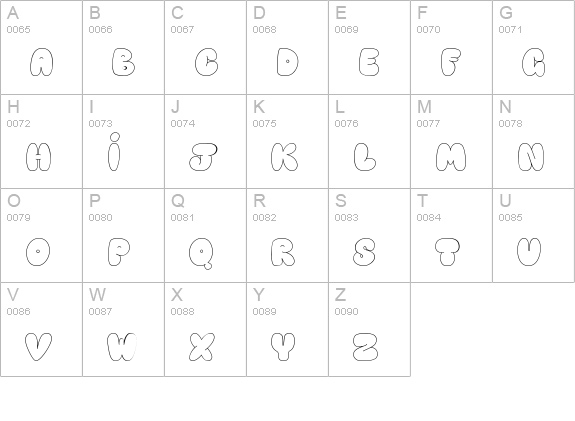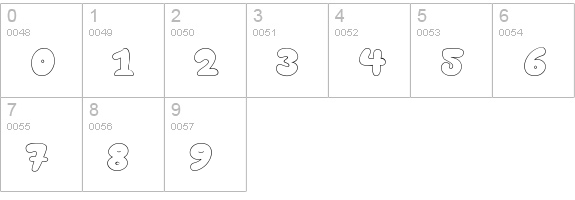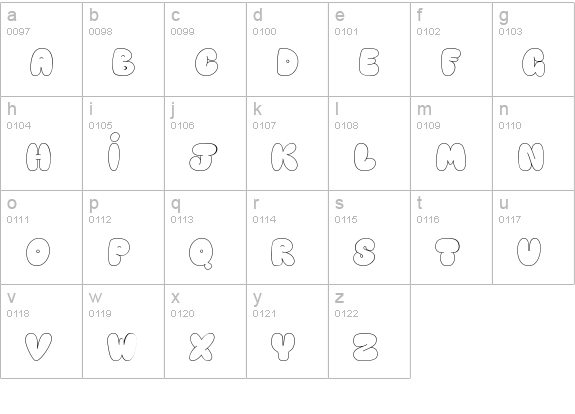
Happy brown cat Font Details
Introducing the delightful and charming Happy Brown Cat font, a perfect blend of whimsy and playfulness that will bring a smile to your face. This font embodies the essence of joy, with its curved and flowing lines that evoke a sense of happiness and contentment. Happy Brown Cat font is not only visually appealing, but it also offers a wide range of versatility. Whether you're designing a children's book cover, creating a cheerful logo, or adding a touch of lightheartedness to your social media posts, this font will effortlessly capture the attention of your audience. One of the best features of the Happy Brown Cat font is that it is completely free! Yes, that's right - you can download and use this font without any cost. It's a wonderful opportunity to enhance your creative projects without breaking the bank. To get your hands on this lovable font, simply head over to FontsMarket.com, where it is freely available for download. With just a few clicks, you can start infusing your designs with the playful spirit of the Happy Brown Cat font. So why wait? Let your imagination run wild and embrace the happiness that the Happy Brown Cat font brings to your designs. Download it today and watch your creations come to life with a touch of feline delight.